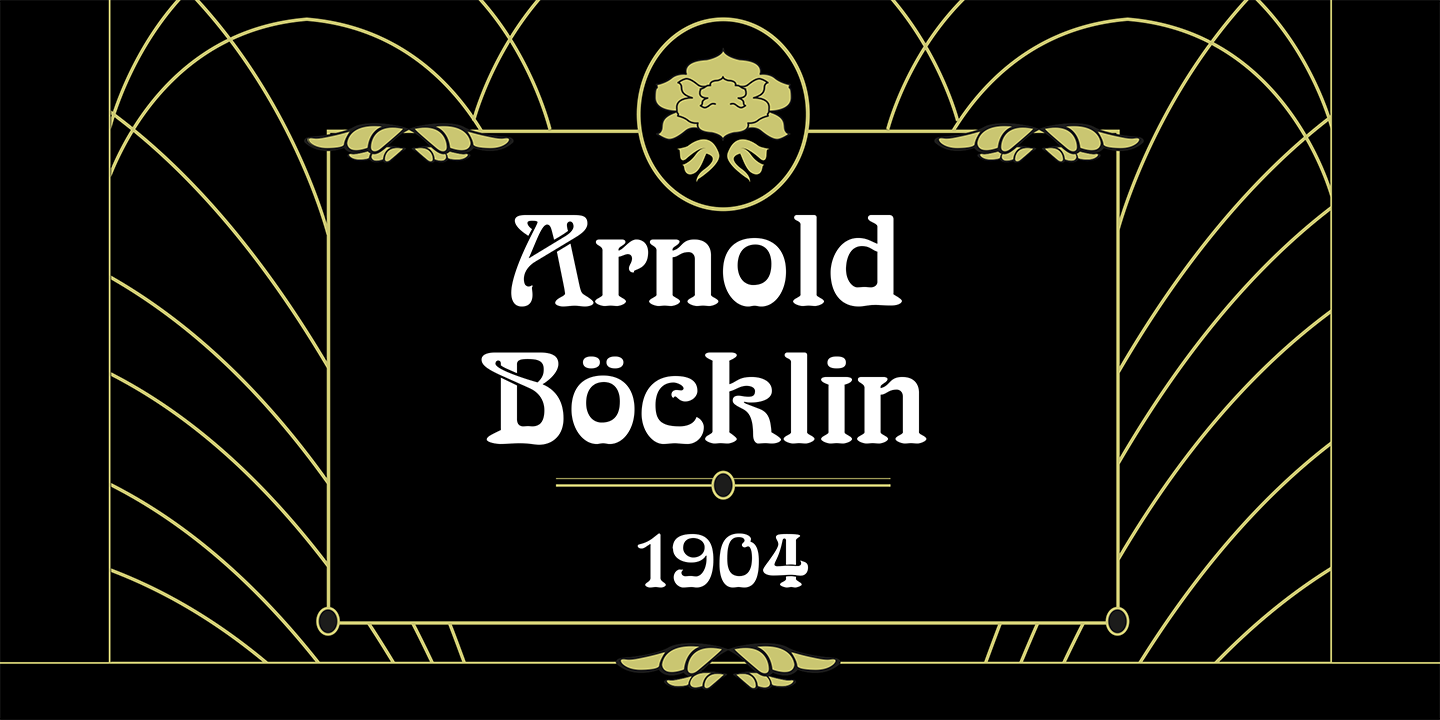
Arnold Boecklin Font Free Download is a distinctive Art Nouveau-inspired display typeface known for its elegant curves and decorative flourishes. Named after the famous Swiss painter Arnold Böcklin, this font brings a vintage, artistic flair to any design project.
Its ornamental style makes Arnold Boecklin Font Free Download perfect for posters, book covers, logos, invitations, and branding that seek a nostalgic yet sophisticated touch. The intricate letterforms evoke the beauty of the late 19th and early 20th centuries, making your designs stand out with a timeless charm.
Add a touch of artistic elegance to your projects with Arnold Boecklin Font Free Download. Whether for creative branding or decorative typography, this font delivers a unique blend of history and style.